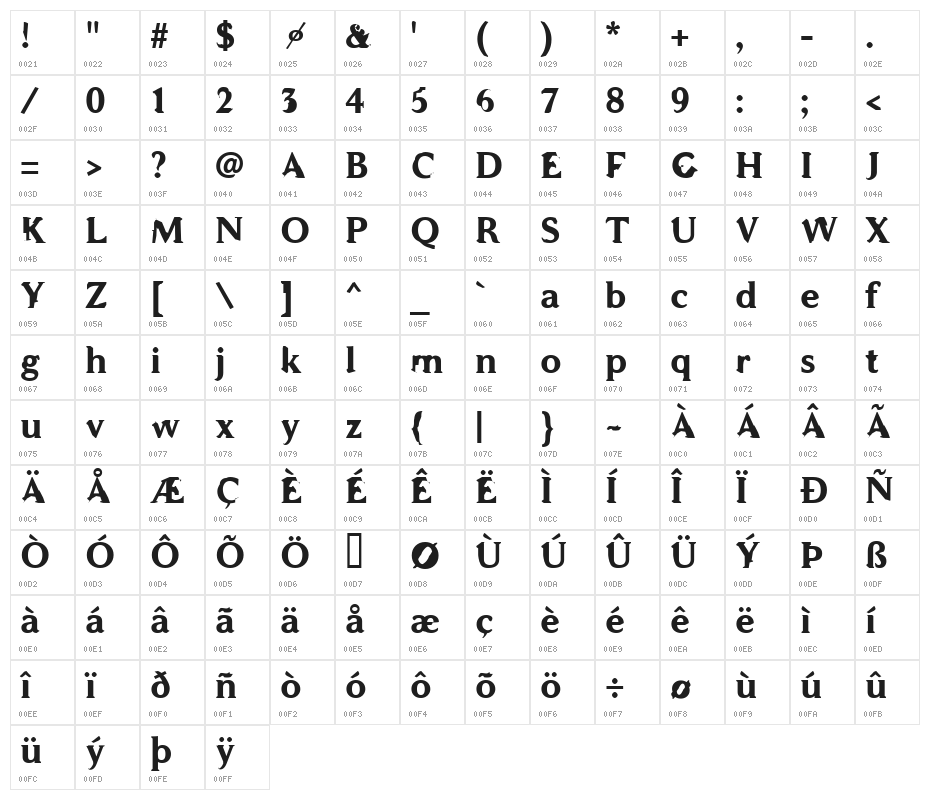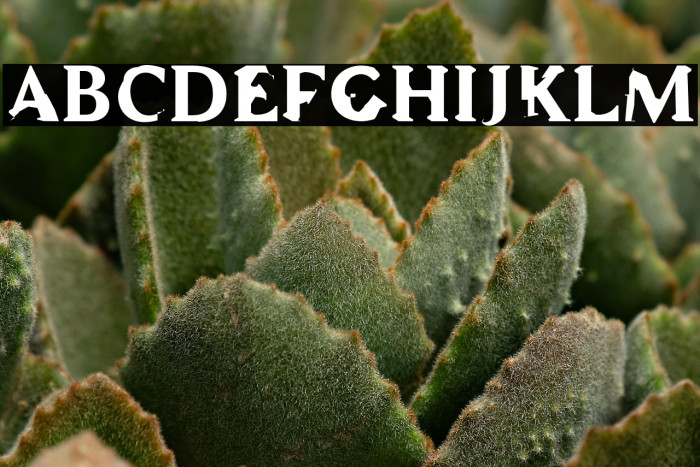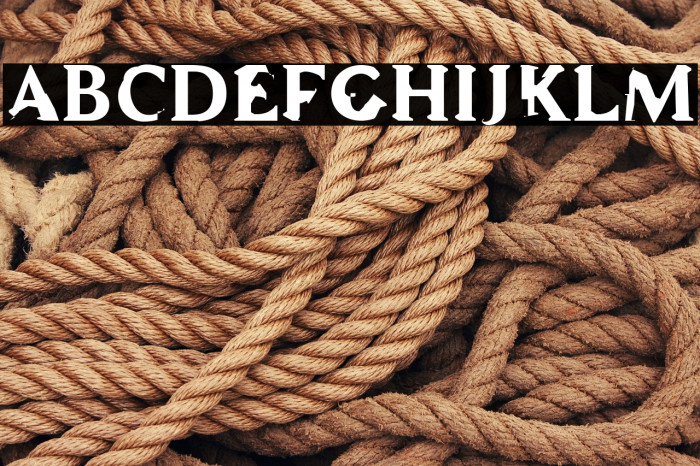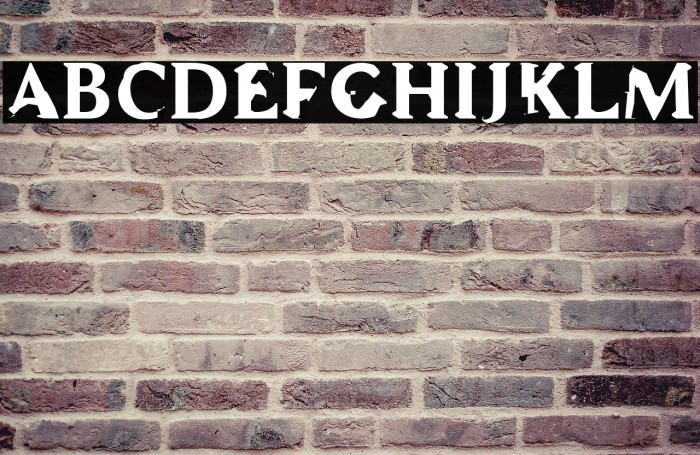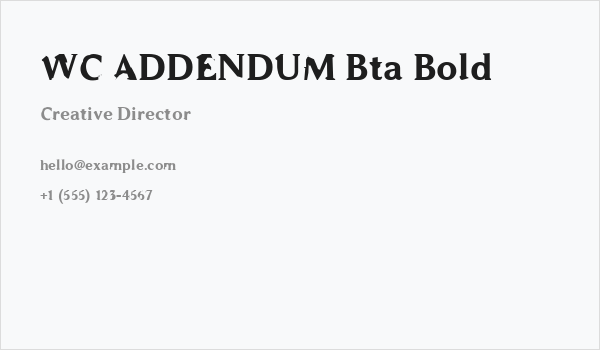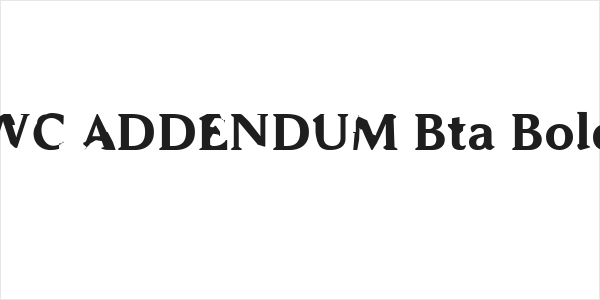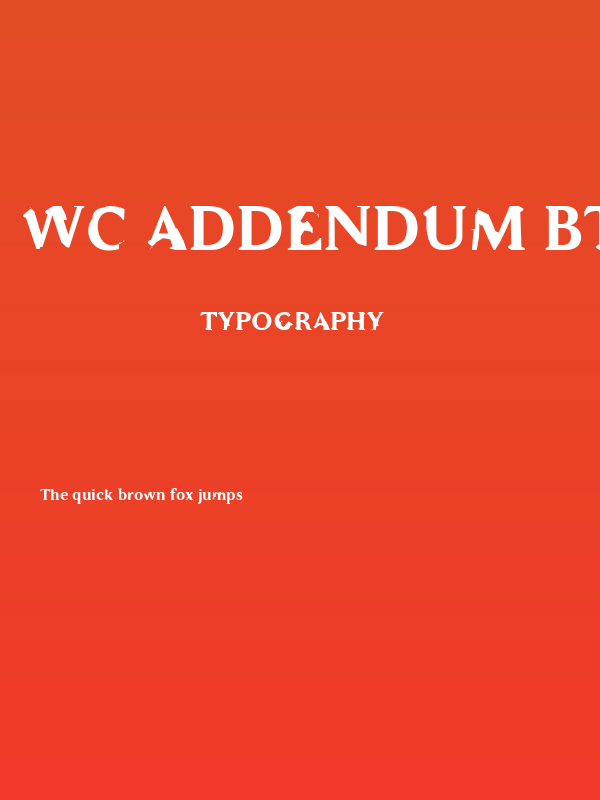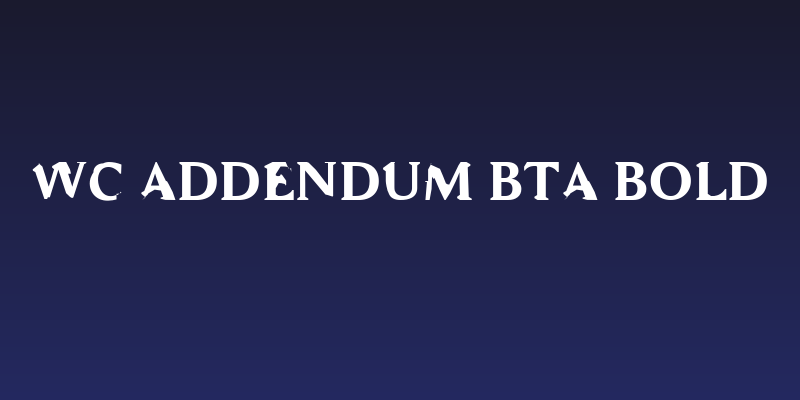
WC ADDENDUM Bta Bold Font
WC ADDENDUM Bta Bold Description
This font features a bold and dramatic style with high contrast between thick and thin strokes. The serifs are pronounced, adding a touch of elegance and sophistication. The uppercase letters are particularly striking, with unique shapes that make them stand out. The lowercase letters maintain a consistent style, ensuring readability while still being visually interesting. Numbers and special characters are designed to match the overall aesthetic, making this font versatile for various uses. The overall appearance is both classic and modern, making it suitable for a wide range of design projects.
| Proposed Projects | Ideal for branding, headlines, posters, and editorial design where a strong visual impact is desired. |